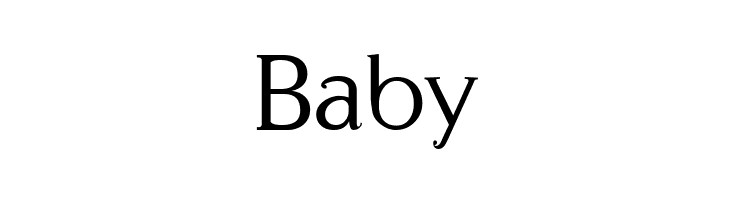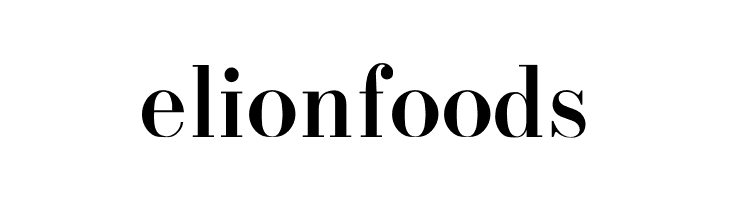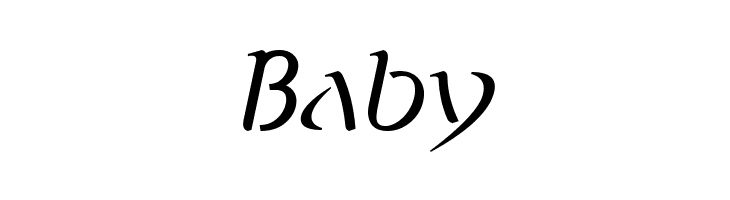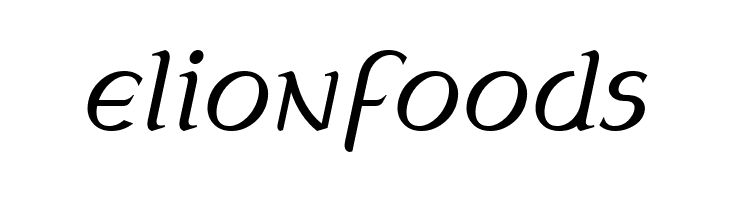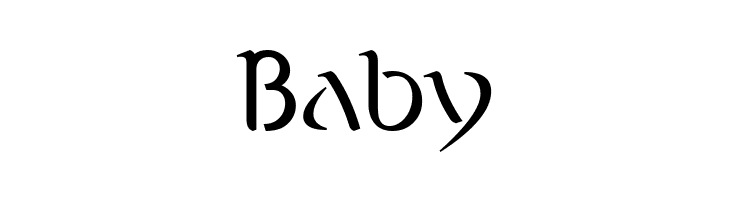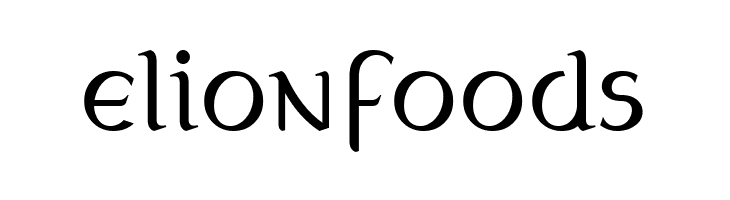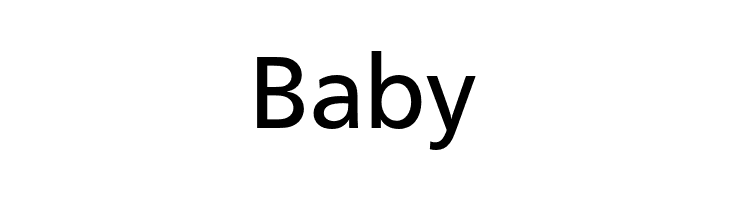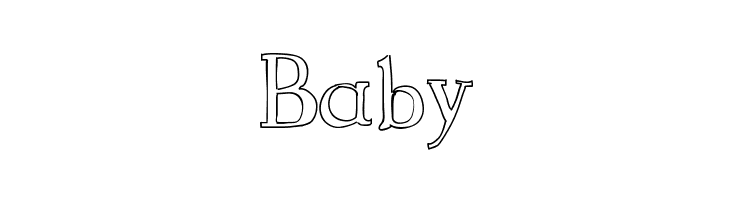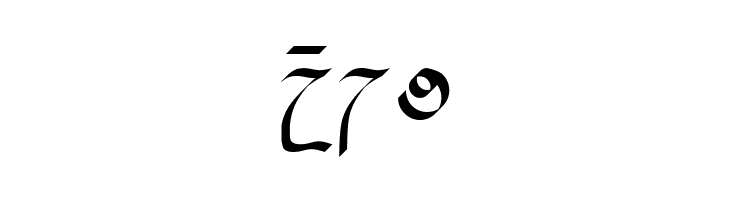
A casual, handwritten font with fluid strokes and a natural, dynamic appearance.
A playful, hand-drawn font with letters in imperfect circles, perfect for creative projects.
A bold, decorative font with Egyptian-themed illustrations accompanying each letter.
A bold, geometric italic font with a modern and dynamic style.
A bold, geometric font with a modern and sleek design.
A playful, hand-drawn style font with bold, rounded characters.
A bold, elegant script font with high contrast and flowing cursive letterforms.
An elegant script font with flowing, cursive strokes and graceful curves.
A classic serif typeface with elegant strokes and medium contrast.
A bold, decorative font with vintage flair and pronounced serifs.
A refined serif font with elegant lines and balanced proportions.
A sleek and elegant italic font with smooth curves and a modern aesthetic.
A bold, geometric font with a futuristic, interconnected design.
A bold, geometric font with a striking three-dimensional outline.
A clean, modern sans-serif font with balanced proportions and high readability.
A modern, italic sans-serif font with clean lines and balanced proportions.
A bold, playful, and slightly italicized font with rounded edges.
A bold, playful font with a hand-drawn, rounded style.
A geometric and modern font with bold, structured characters.
A classic serif typeface with a modern touch, featuring elegant serifs and balanced proportions.
A modern oblique font with classic elegance and moderate stroke contrast.
A modern sans-serif font with geometric shapes and balanced proportions.
A classic serif font with elegant, refined letterforms and sharp serifs.
A classic serif font with elegant, thin strokes and a refined appearance.